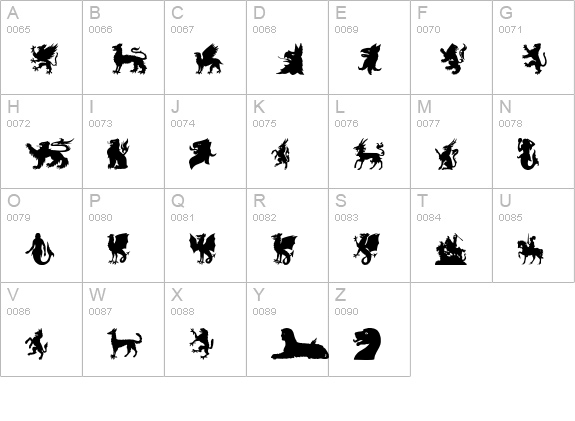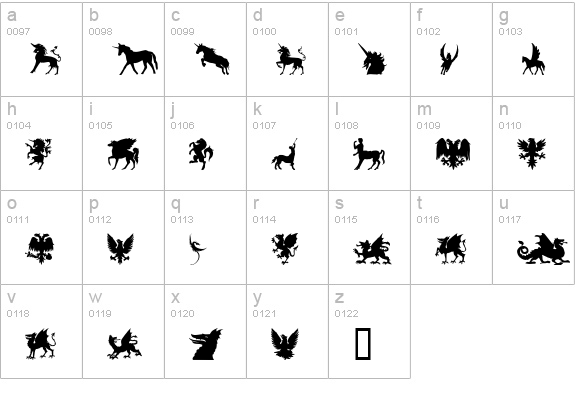
SL Mythological Silhouettes Font Details
Introducing SL Mythological Silhouettes, a captivating and enchanting font that brings to life the rich tapestry of ancient mythology. This extraordinary typeface is meticulously crafted to embody the mystical essence of legendary creatures and mythological beings, allowing you to effortlessly imbue your designs with an air of magic and wonder. SL Mythological Silhouettes boasts a stunning array of intricate and detailed silhouettes, each representing a different mythical creature from various cultures around the world. From majestic dragons and majestic unicorns to fearsome griffins and elegant mermaids, this font offers an extensive collection of mythical beings that will transport your designs to realms beyond imagination. Not only does SL Mythological Silhouettes offer an extraordinary visual experience, but it also provides utmost versatility. With its seamless integration into various design projects, including posters, book covers, logos, and more, this font allows you to effortlessly explore the limitless boundaries of creativity. One of the most appealing aspects of SL Mythological Silhouettes is its accessibility. This captivating font is freely available to download at FontsMarket.com, ensuring that designers and enthusiasts alike can easily tap into the magic it holds. Whether you are a professional designer looking to add a touch of mystique to your creations or an aspiring artist eager to experiment with the allure of mythology, SL Mythological Silhouettes is your gateway to a world of free, captivating possibilities. Unleash your imagination and embark on a journey through the realms of ancient myths with SL Mythological Silhouettes. Let this font transport you to a world where legends come alive, and where your designs are infused with the ethereal beauty of long-forgotten tales. Download SL Mythological Silhouettes today from FontsMarket.com and let your creativity soar to new heights.